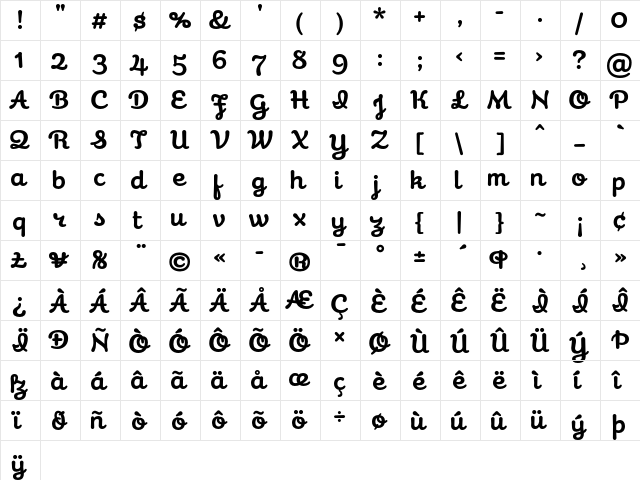
Galaxie Cassiopeia Bold
Design Context for Galaxie Cassiopeia Typeface
Galaxie Cassiopeia takes a measured approach to typography — its balanced proportions and neutral character make it a reliable workhorse for both digital and print work. The heavy weight commands attention and anchors typographic hierarchies.
Pro Tip: Use Galaxie Cassiopeia in both headline and body roles to test its range before committing to a single application.